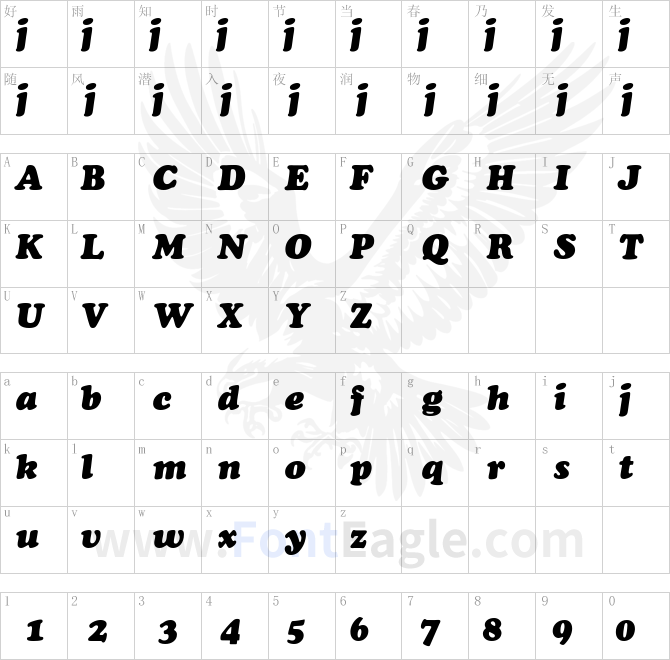
Cooper-copy-2- is a great font, widely used in graphic design, single-page menu design, poster design and other fields, and is deeply loved by designers.Cooper-copy-2- download.